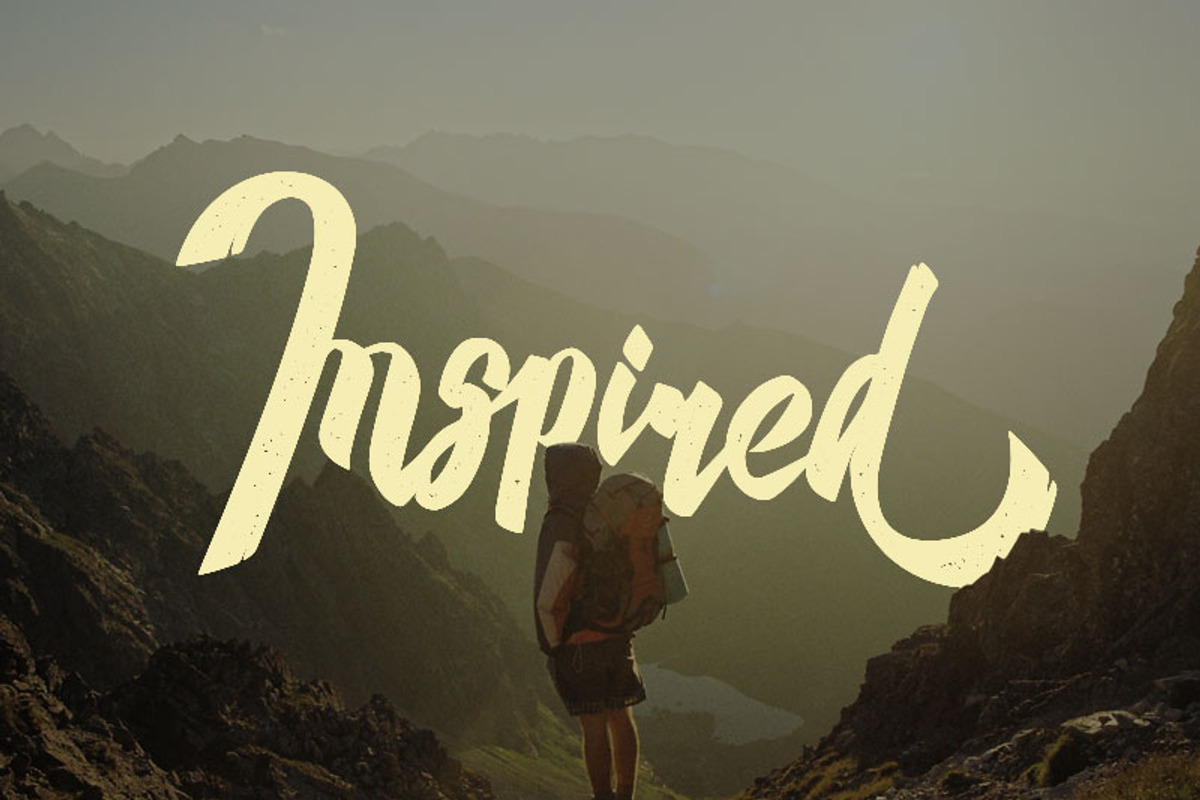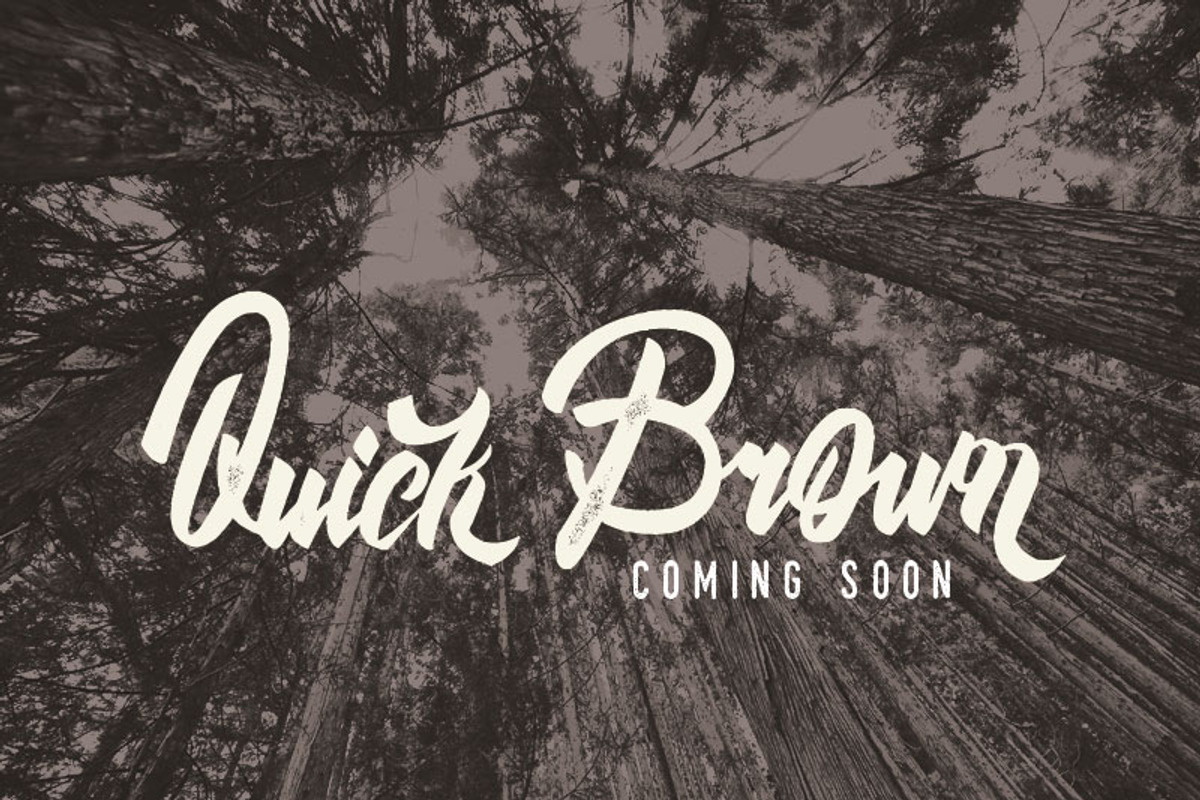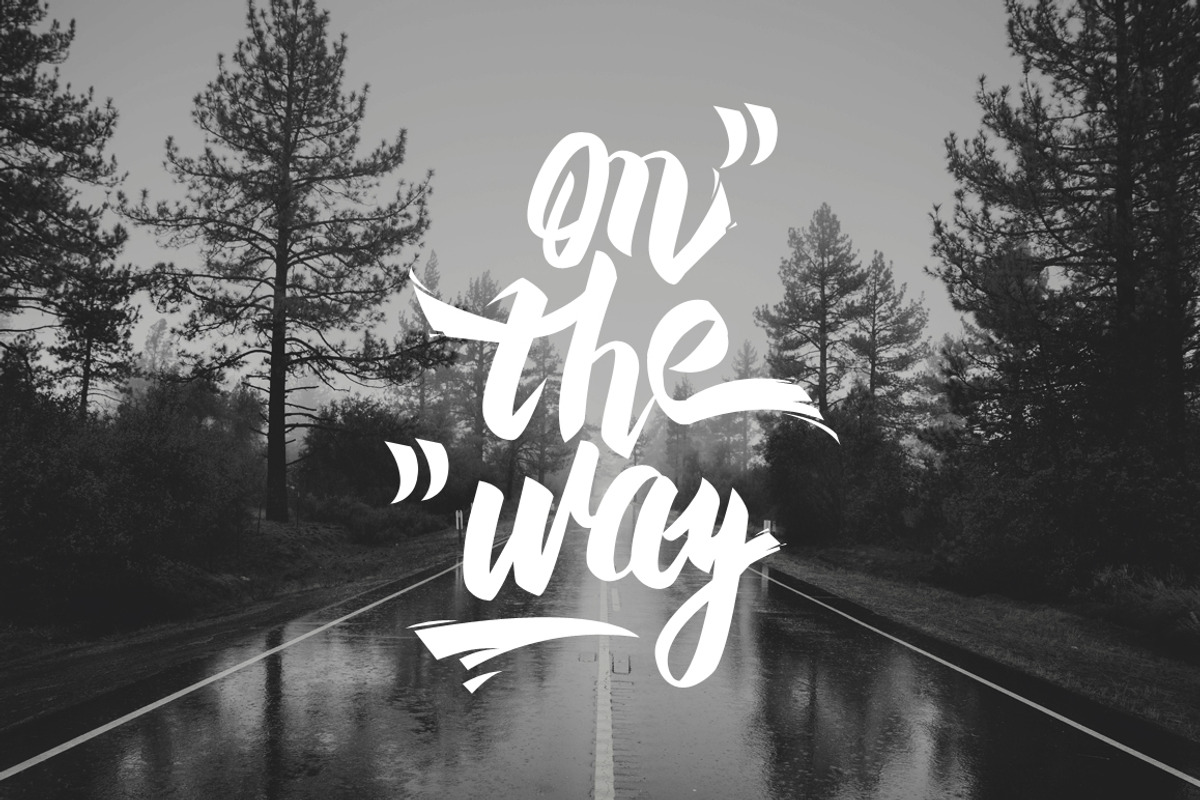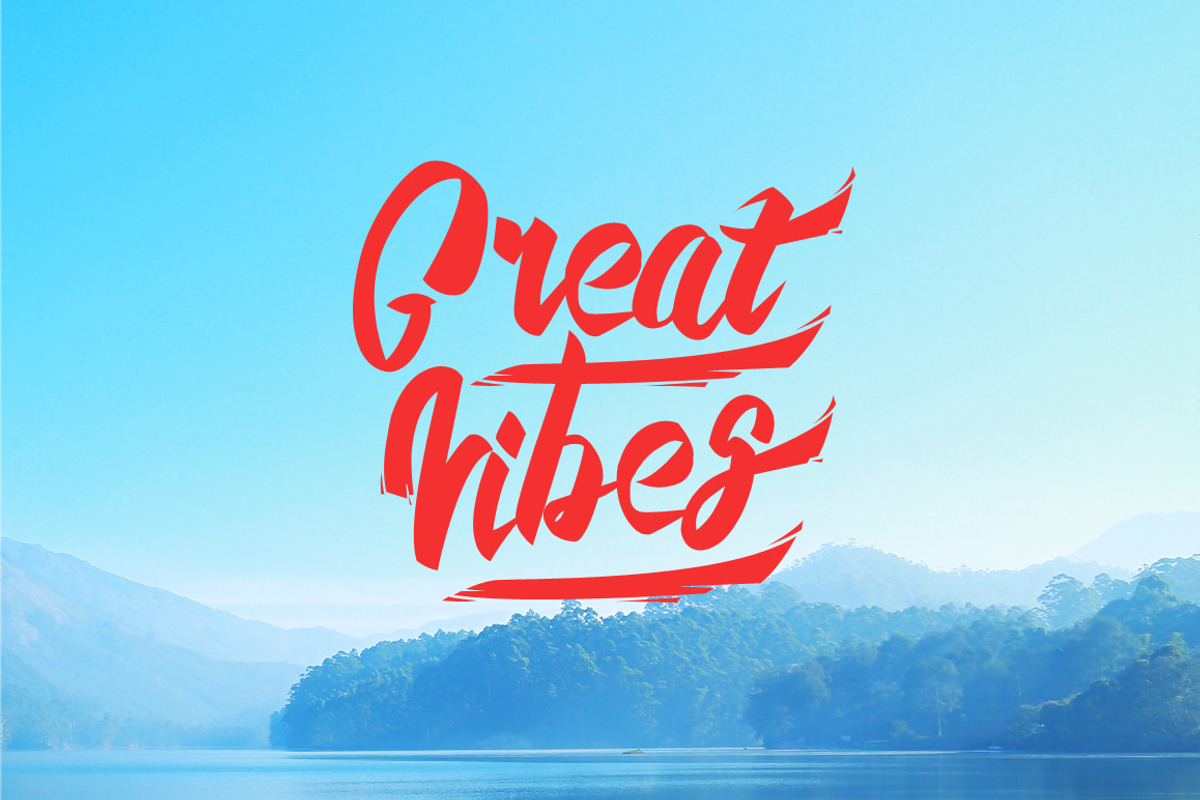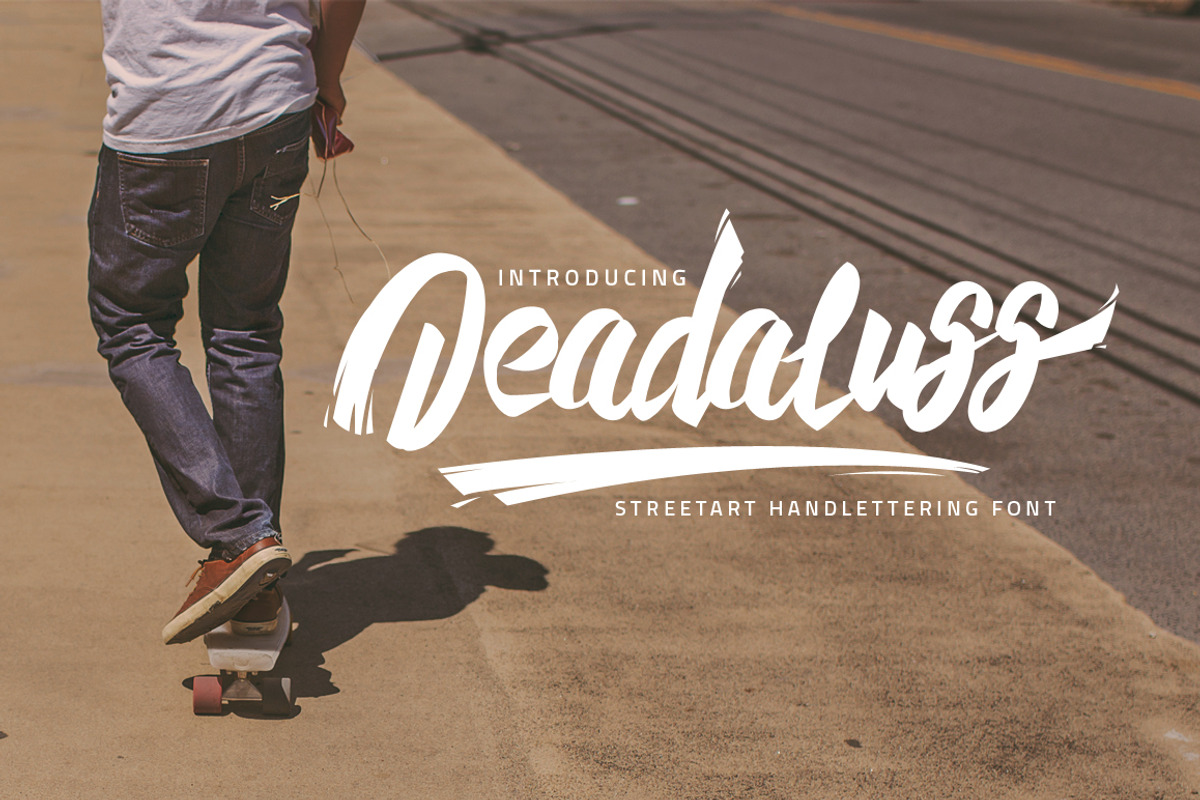
Deadaluss Handmade Font ( 50% off! )
Deadaluss Handmade Font ( 50% off! ) by Haws.std is a font selected for branding, posters, packaging, typography.
Why Deadaluss Handmade Font ( 50% off! ) is worth a look
Deadaluss Handmade Font ( 50% off! ) by Haws.std fits naturally into Branding, posters, packaging, typography.